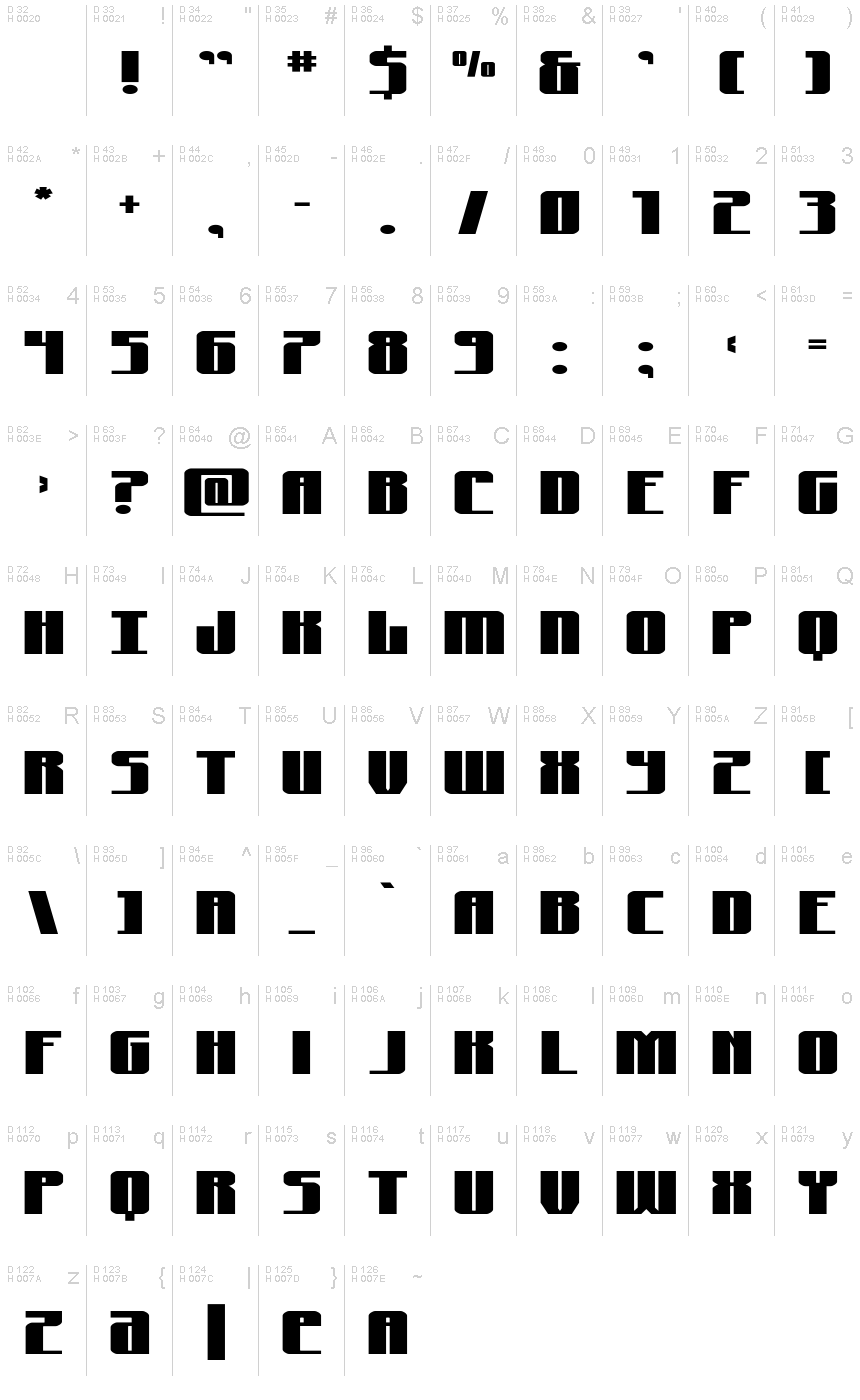
Xeno-Seeker Wide
Xeno-Seeker Wide font was designed by Iconian Fonts. Strong and bold, this display font is techno-styled and feels modern, high tech futuristic, geometric shapes yet easily readable. High contrast gives the text a dramatic presence that adds to the overall unique appearance when using uppercase letters.
This perfect headline font is ideal for title pages, branding, logo typesetting where maximum use will be made of limited character sets (enough said). Ideal for posters or signage requiring titles only as well!